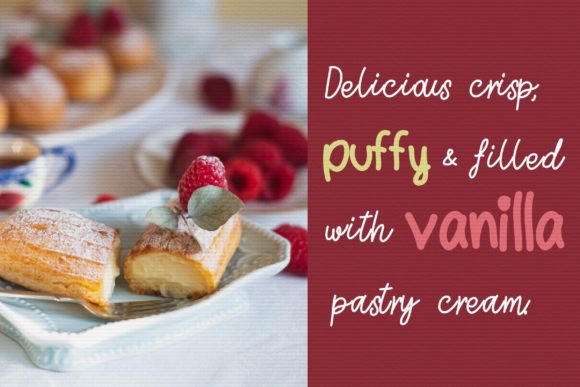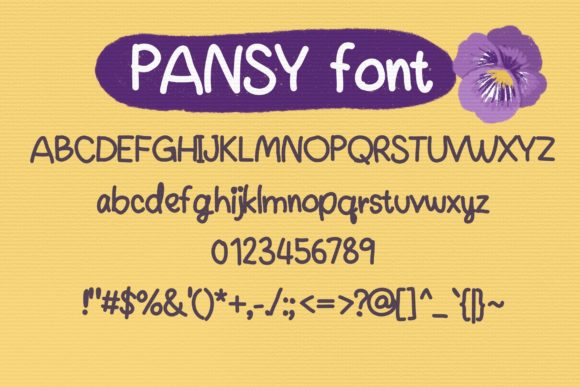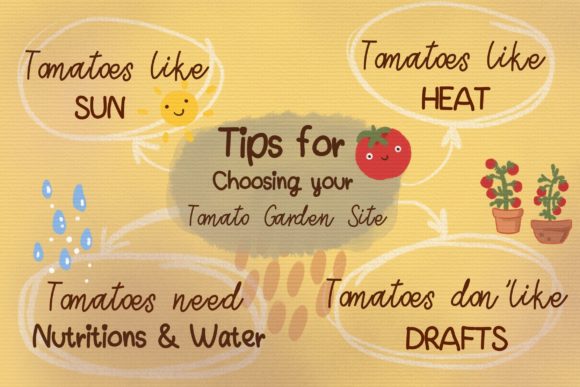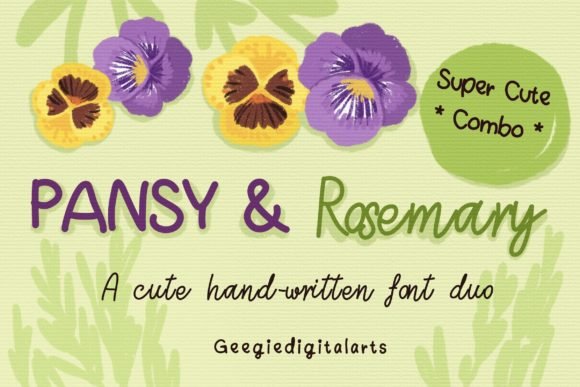
Introduction to Pansy and Rosemary Duo Font
Pansy and Rosemary Duo is a lovely duo handwritten font, that can be used for all chalkboard quotes or teaching material.
Its authentic look and feel will add a personal and realistic feel to your designs .
Key Features of Pansy and Rosemary Duo Font
Why Choose Pansy and Rosemary Duo Font?